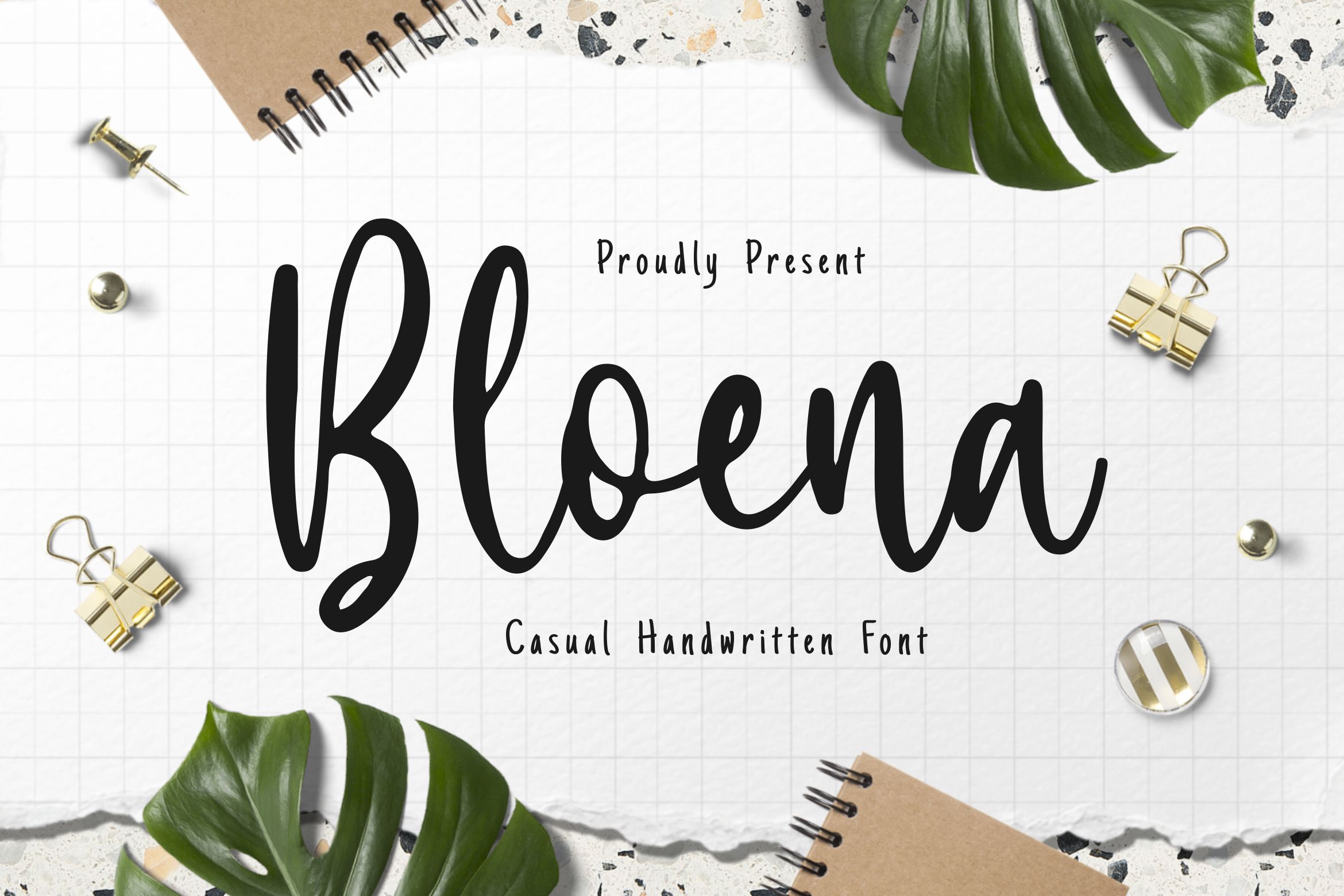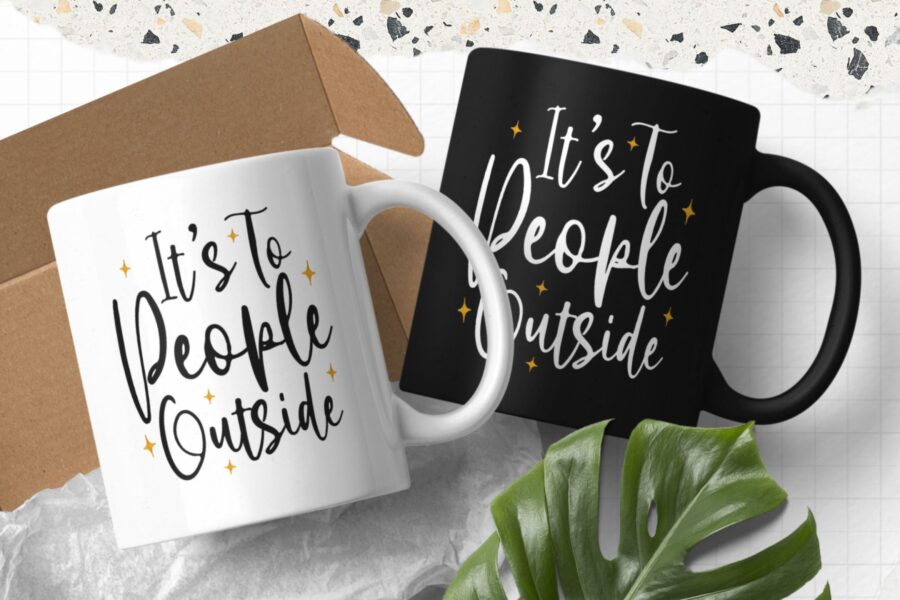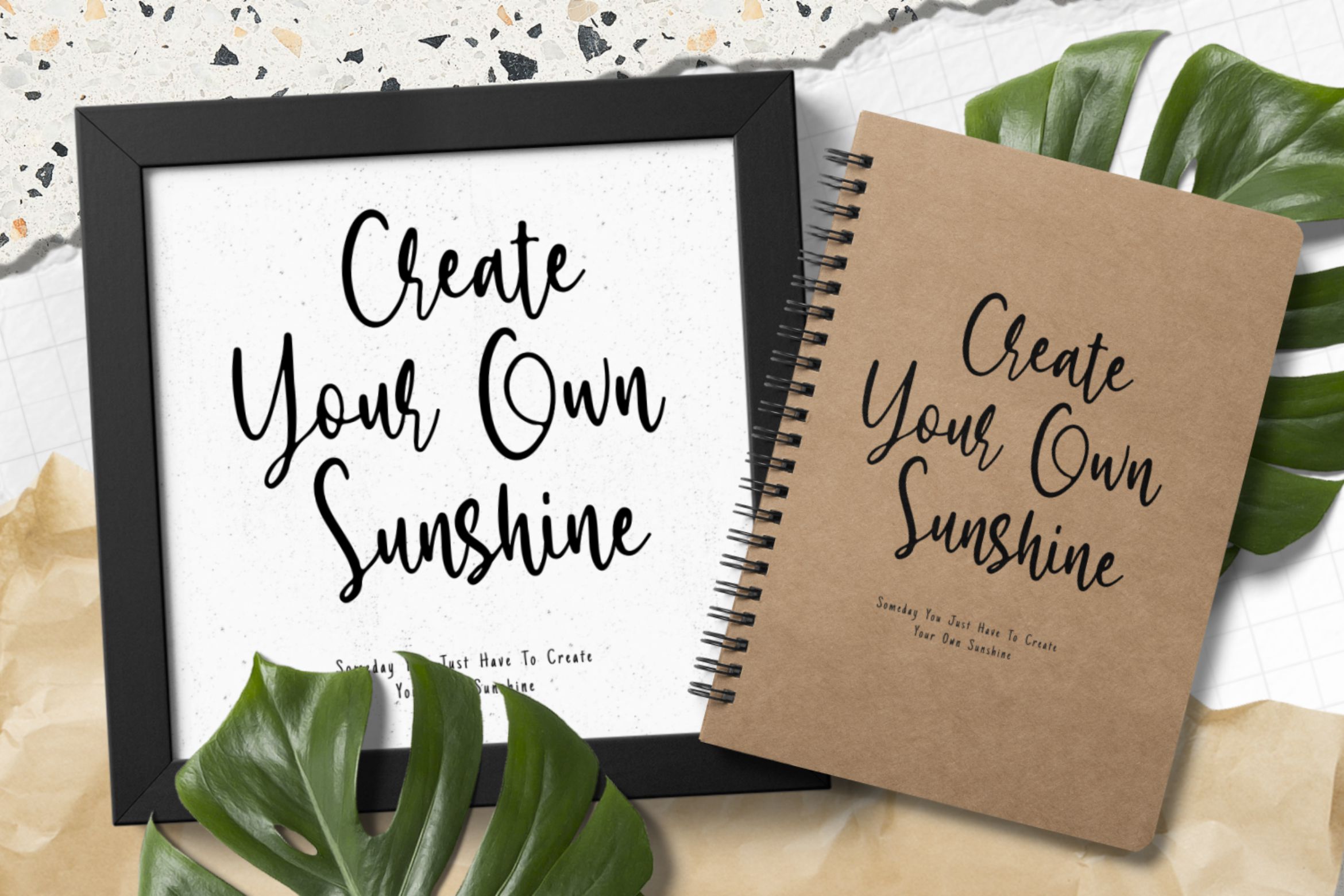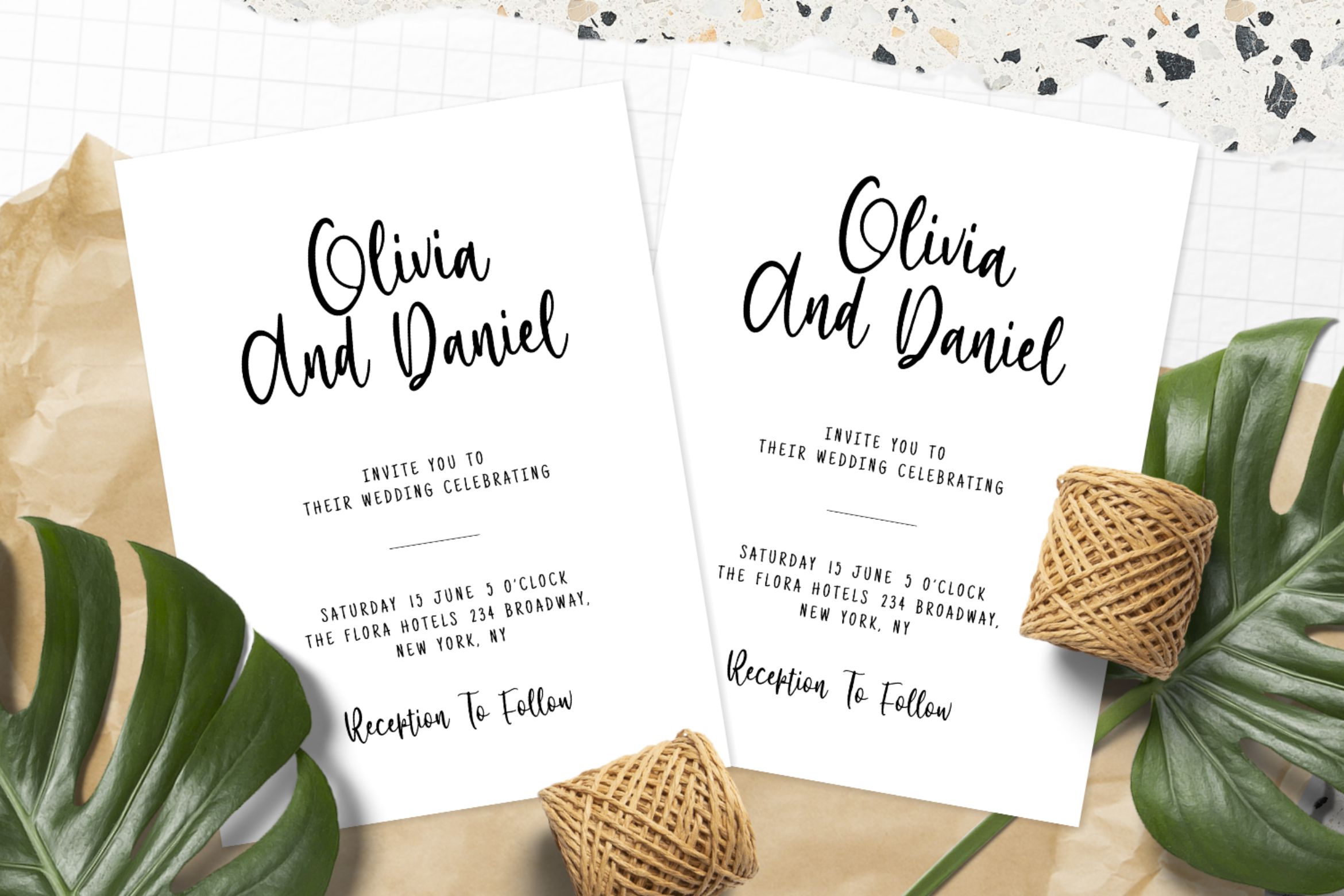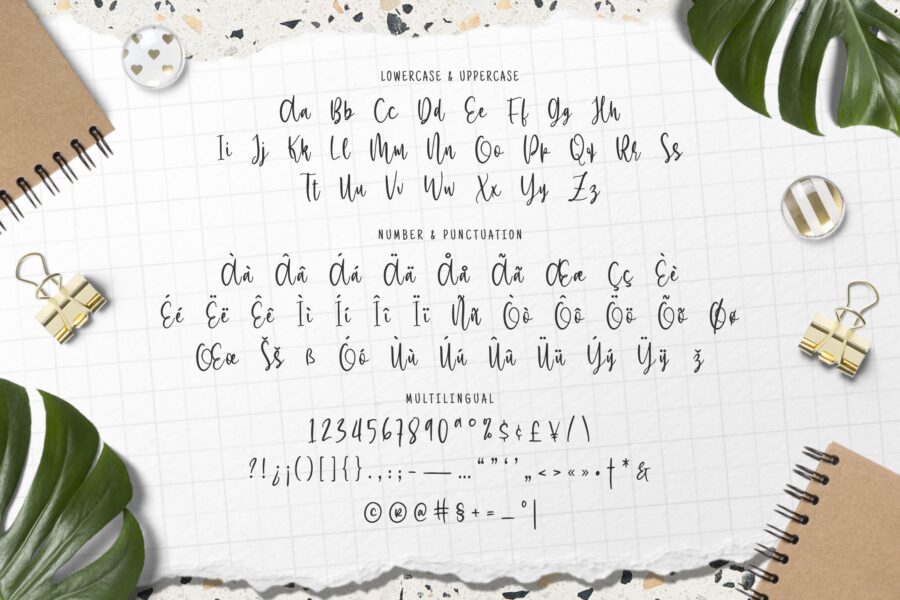
Bloena is a casual handwritten font that combines a clean, soft flow with an inviting personal touch. With tall, slightly bouncy letterforms and smooth curves, Bloena brings warmth and friendliness to your projects. It’s perfect for logos, mugs, greeting cards, journals, wedding invitations, social media graphics, and lifestyle branding that calls for a modern and approachable look.
Featuring complete multilingual support, numerals, and punctuation, Bloena is both expressive and versatile. Whether you’re designing a gift tag, planner cover, or romantic quote, this font will effortlessly deliver a charming, handwritten feel that feels authentic and contemporary.
Bloena